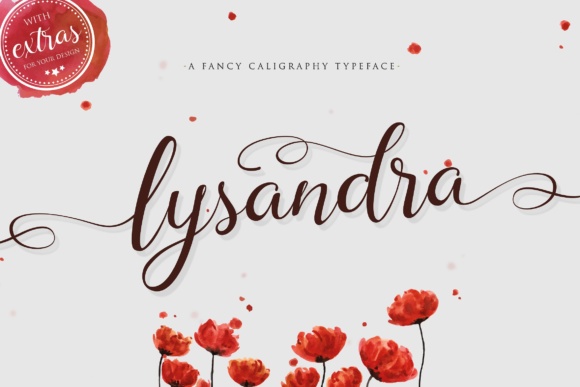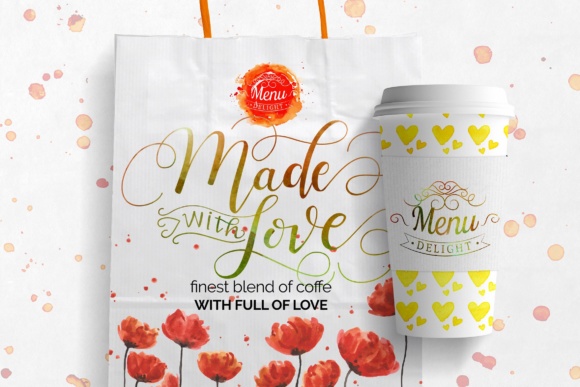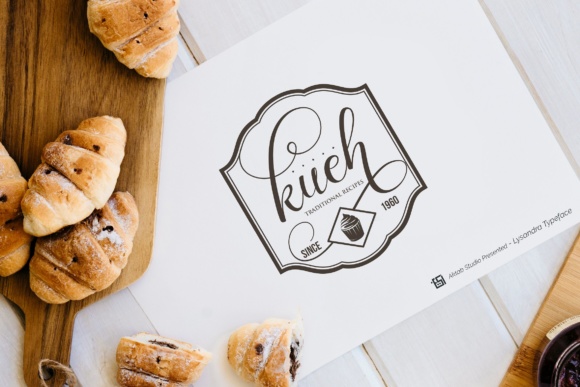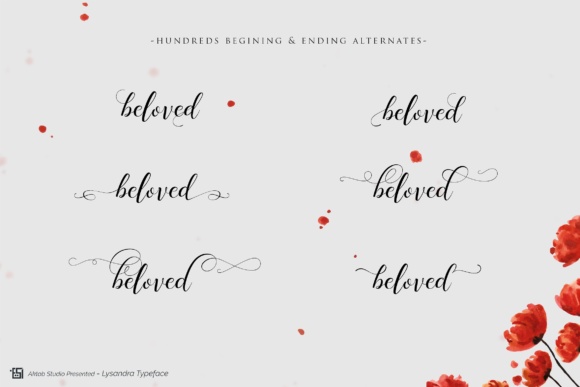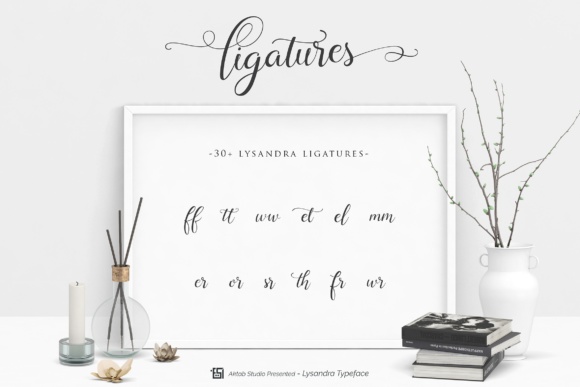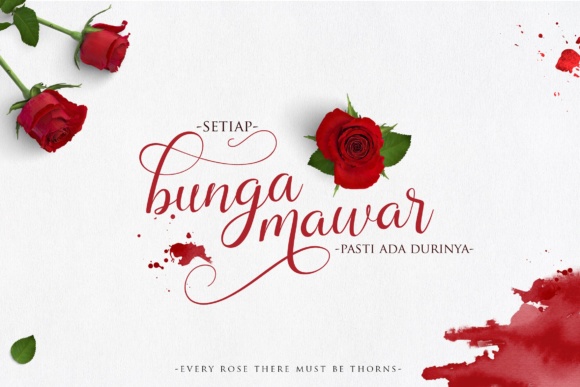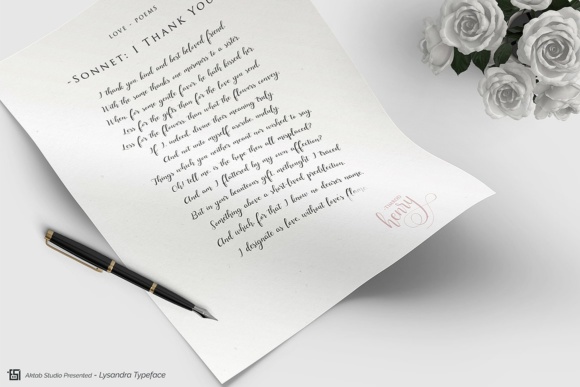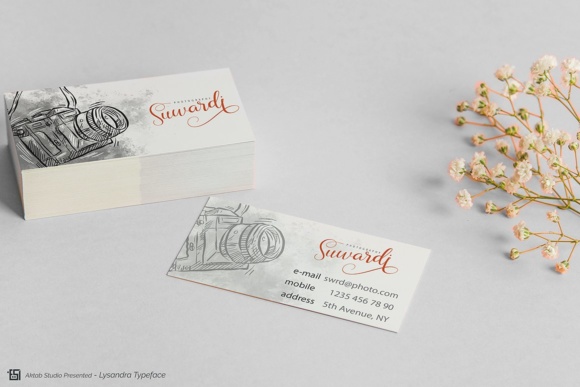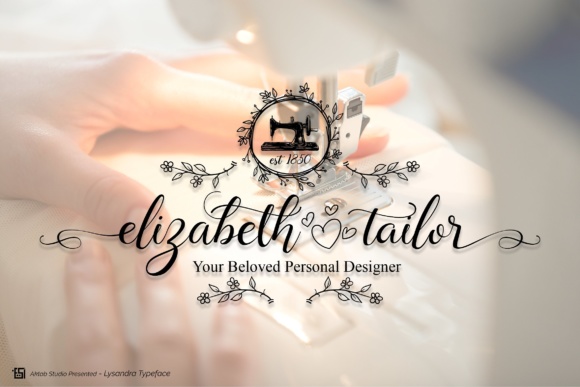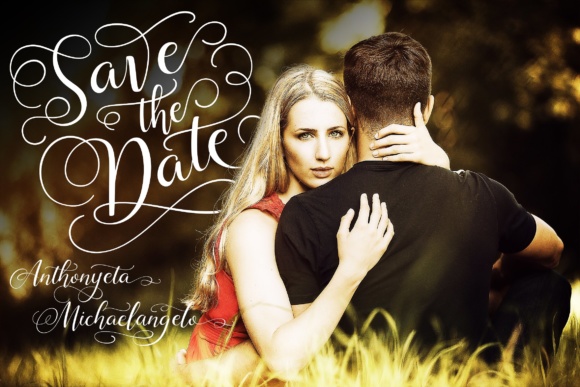
Lysandra Font
About Lysandra Font
Lysandra is a beautiful, modern calligraphy script that looks stellar in any type of design! This font has tons of stylistic alternates and ligature variations so you can make unique looking displays from Lysandra, a stunning calligraphy script.